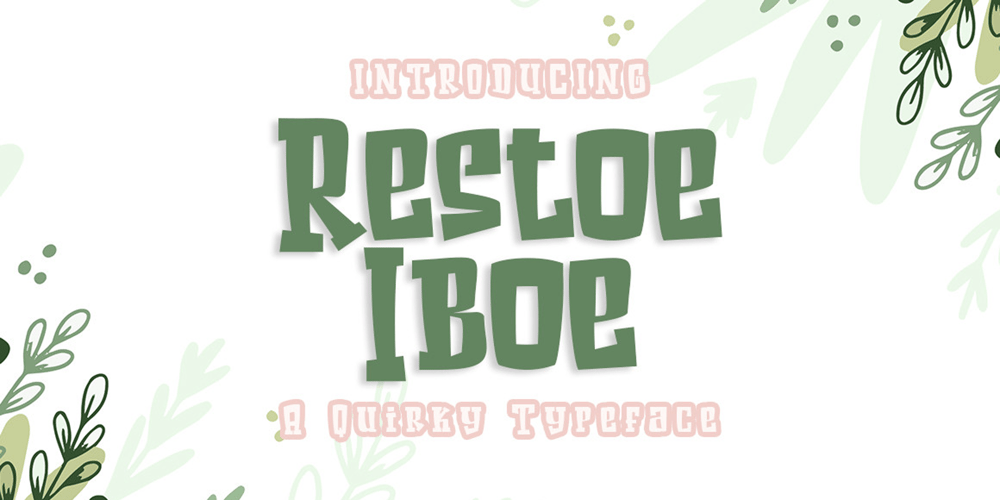
Restoe Iboe Font Family was designed by Ardi Parwito and published by Green Adventure Studio. Restoe Iboe contains 1 styles and family package options. Restoe Iboe is a quirky and cartoon like display font. It is perfect for headings, flyers, greeting cards, product packaging, book covers, printed quotes, logotype, apparel design, instagram post, album covers, and more.